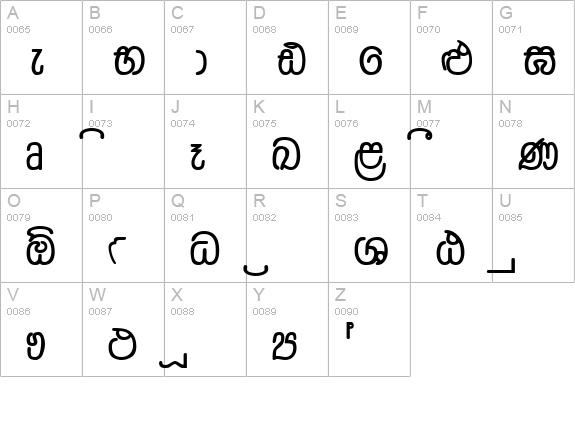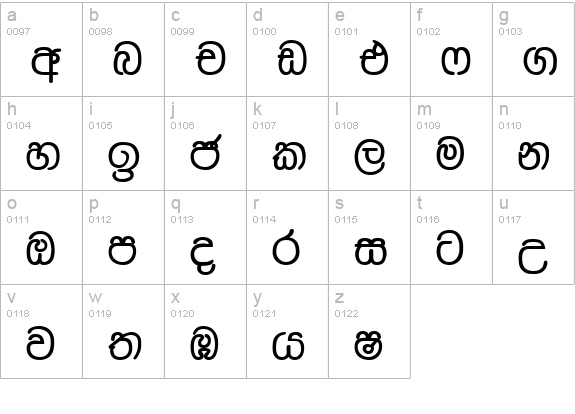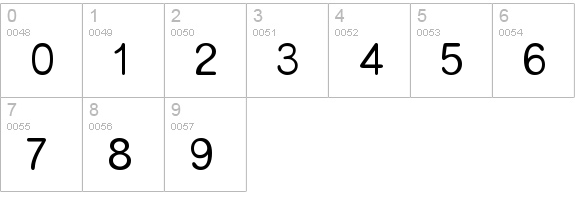
Dusharnbi font is a beautifully crafted typeface that exudes elegance and sophistication. Its intricate details and unique design make it stand out from the crowd, making it perfect for a wide range of design projects. Whether you're looking to create stunning logos, eye-catching posters, or stylish branding materials, Dusharnbi font is sure to impress. The best part? Dusharnbi font is completely free for personal and commercial use. You can easily download this versatile font for free at FontsMarket.com and start using it in your projects right away. With its timeless appeal and modern twist, Dusharnbi font is a must-have addition to any designer's toolkit. Experience the beauty and versatility of Dusharnbi font today – download it for free and let your creativity soar.